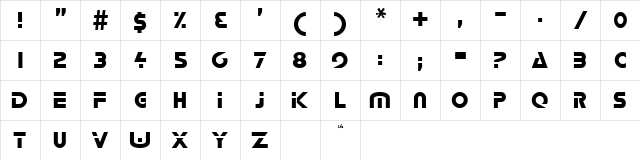
Linker Normal
Design Context for Linker Typeface
Linker is a composed and adaptable typeface that performs quietly and consistently across a wide range of design contexts.